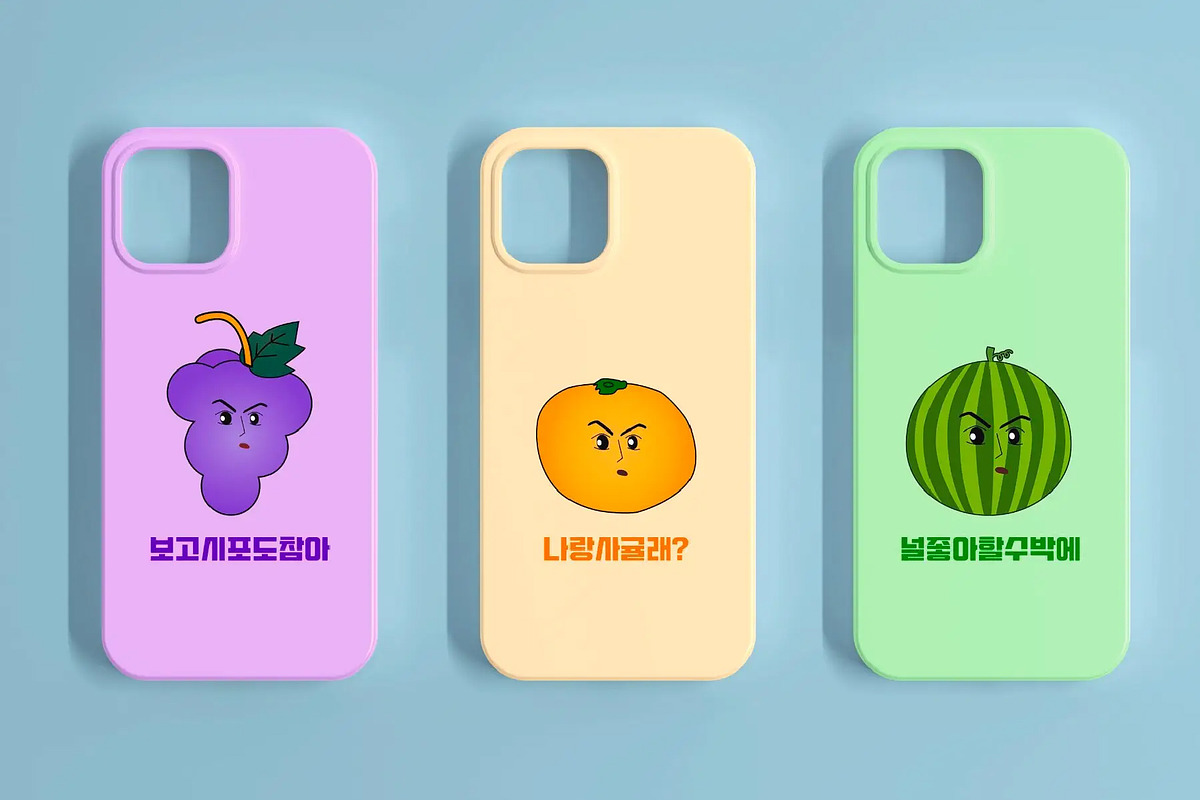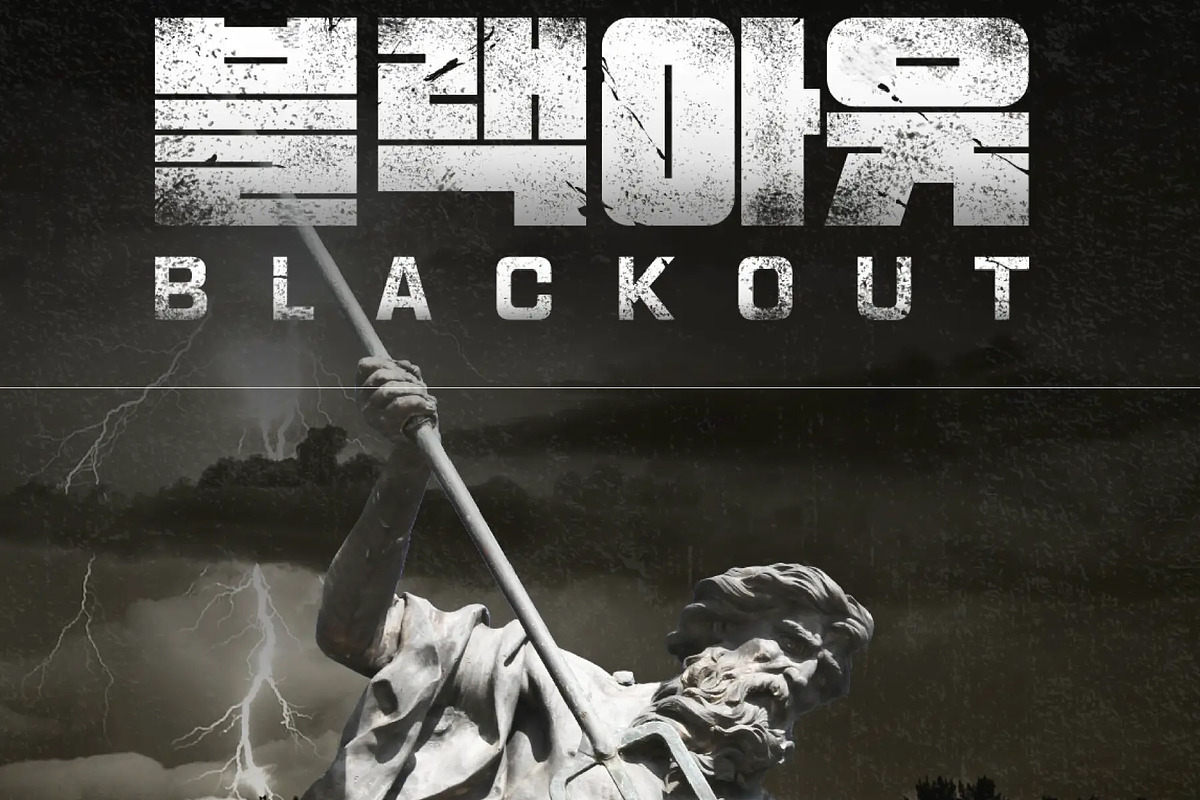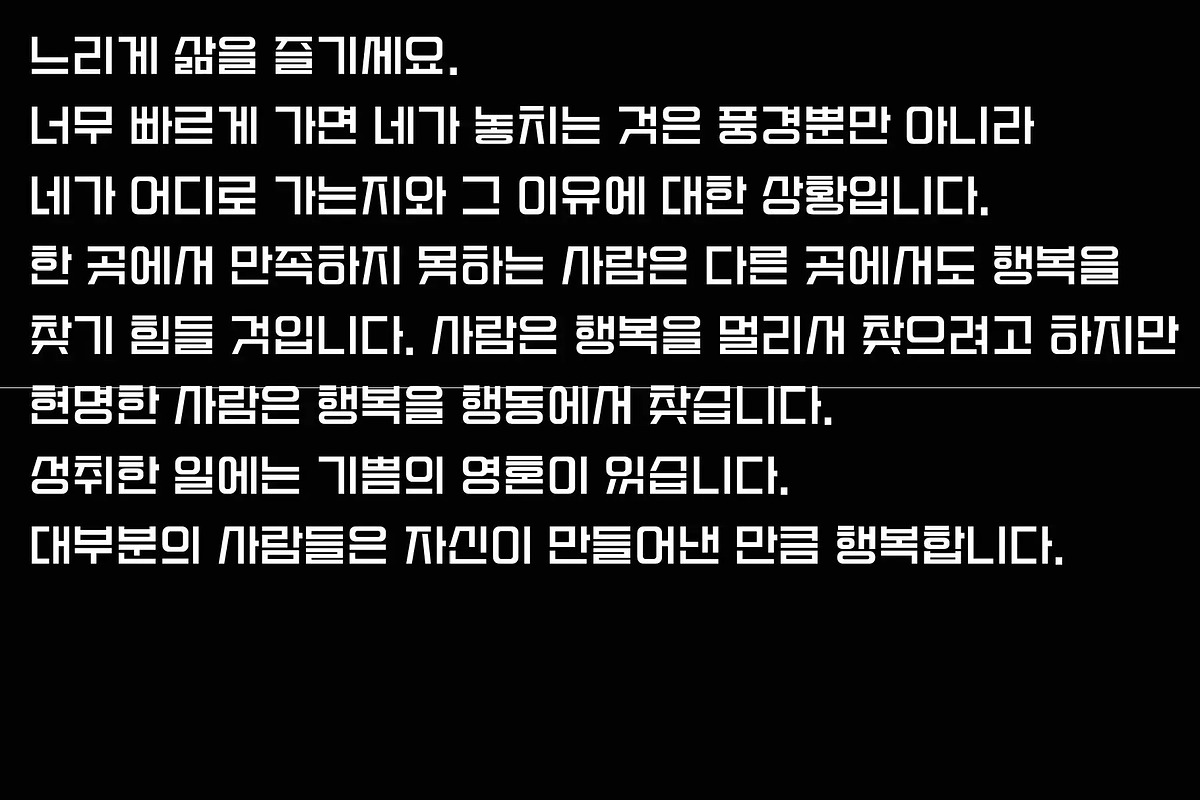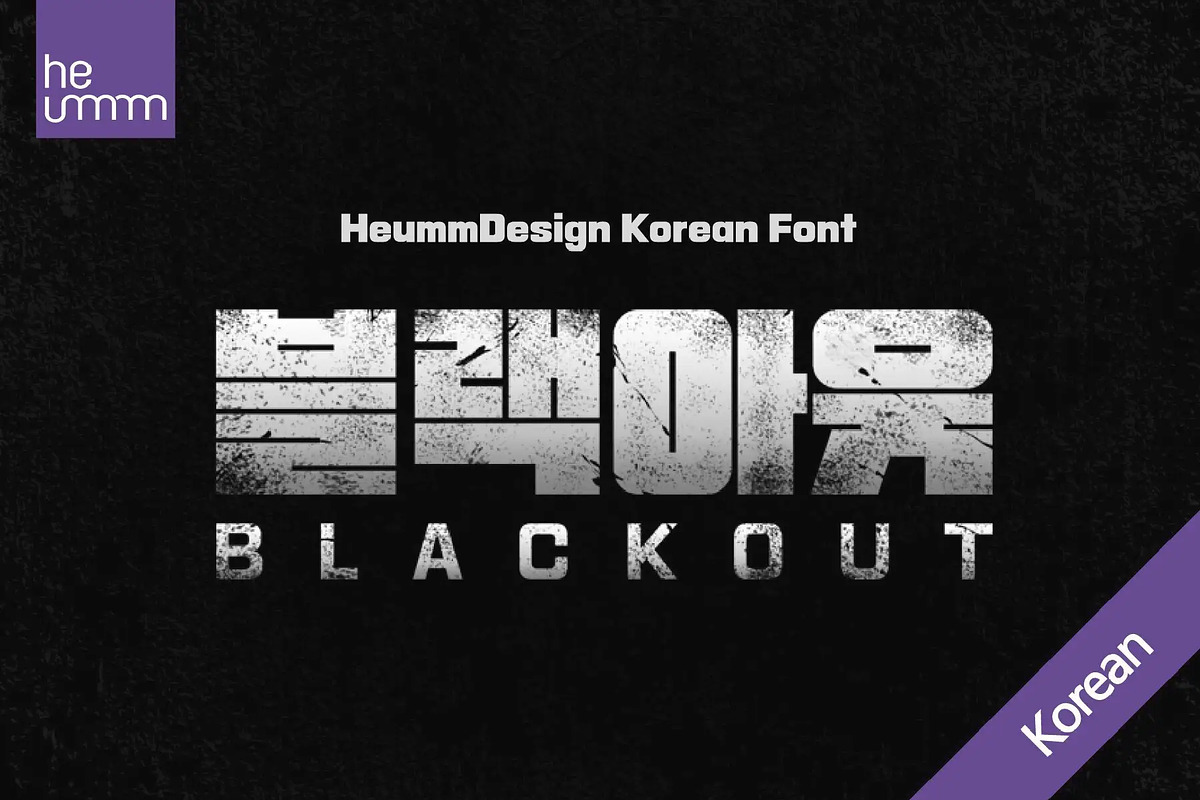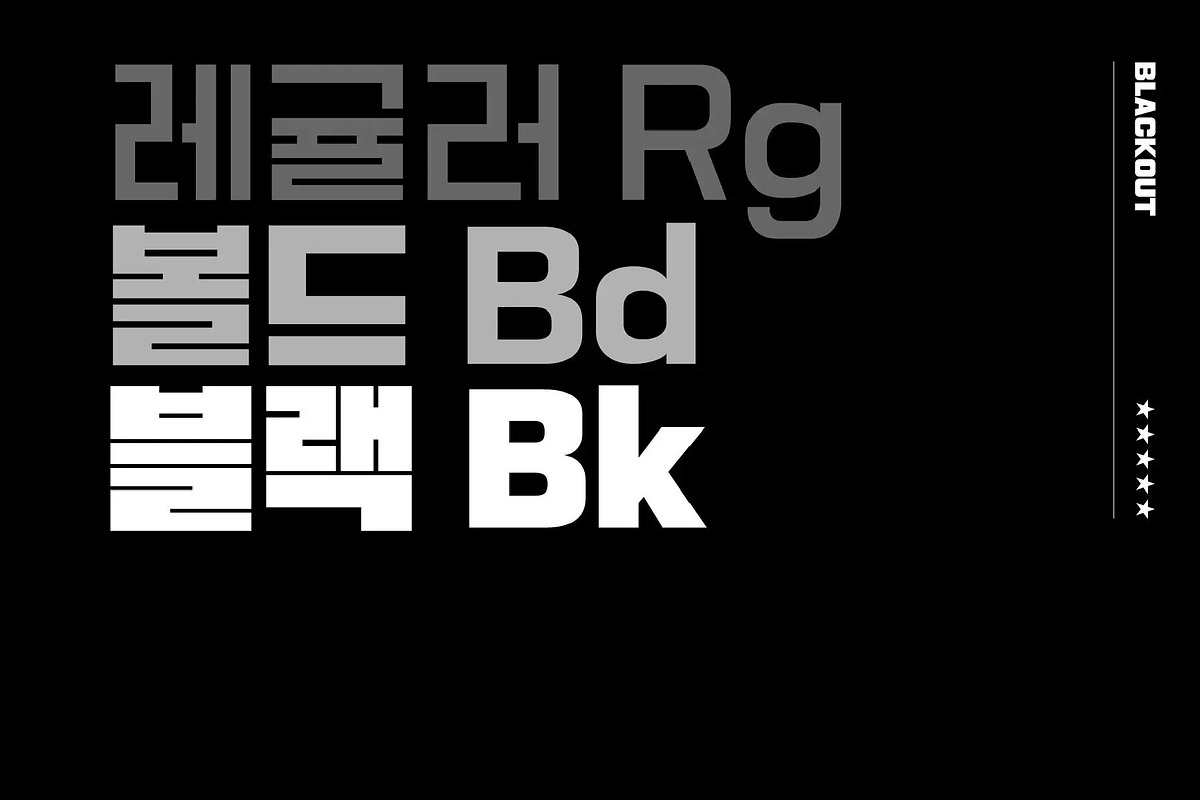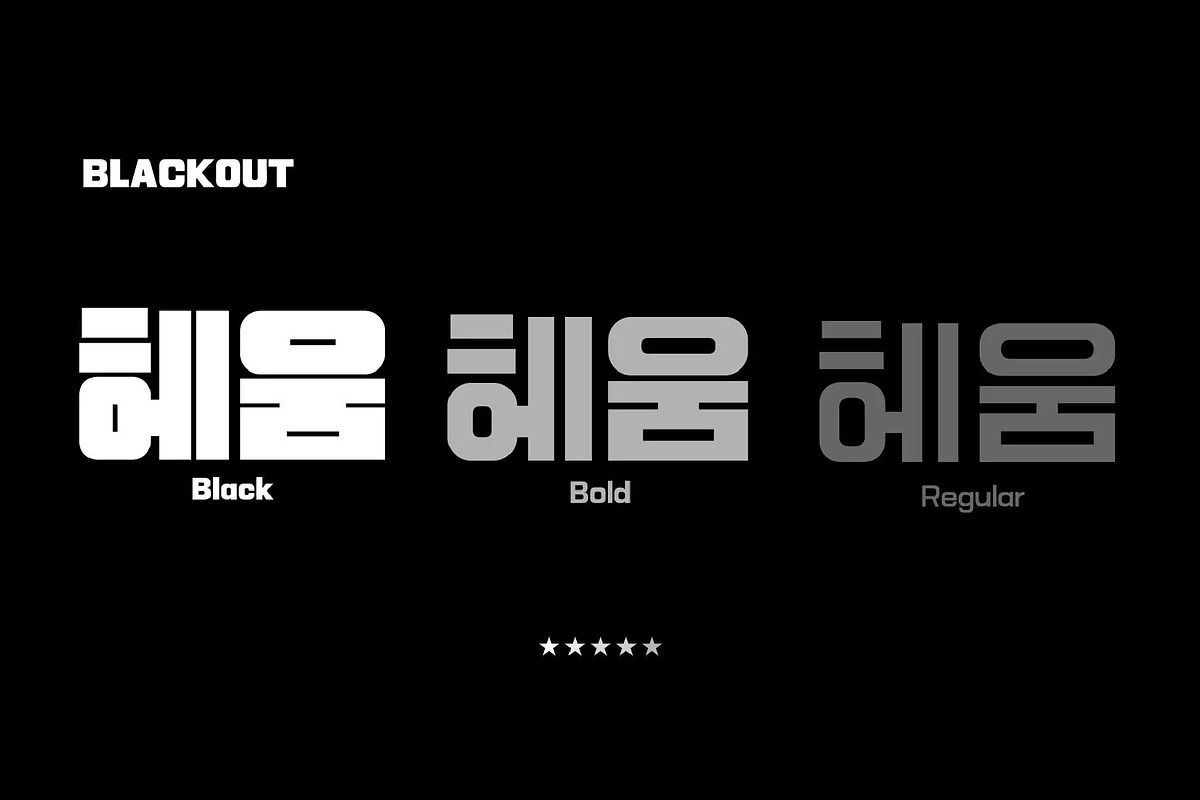
HU Blackout KR is a typeface for titles that feels like letters are trapped in a square and has a constant and very narrow inner space.
It is composed of three types of family typeface to increase usability.
HU Blackout KR includes Korean.
There are 3 weights of HU Blackout : Regular, Bold, Black
- Multilanguage (Basic Latin, Western European, Euro, Catalan, Baltic, Turkish, Central European, Romanian, Pan African Latin, Dutch, Afrikaans, Basic Greek, Basic Cyrillic, Mathematical Operators)
- 12274Glyphs